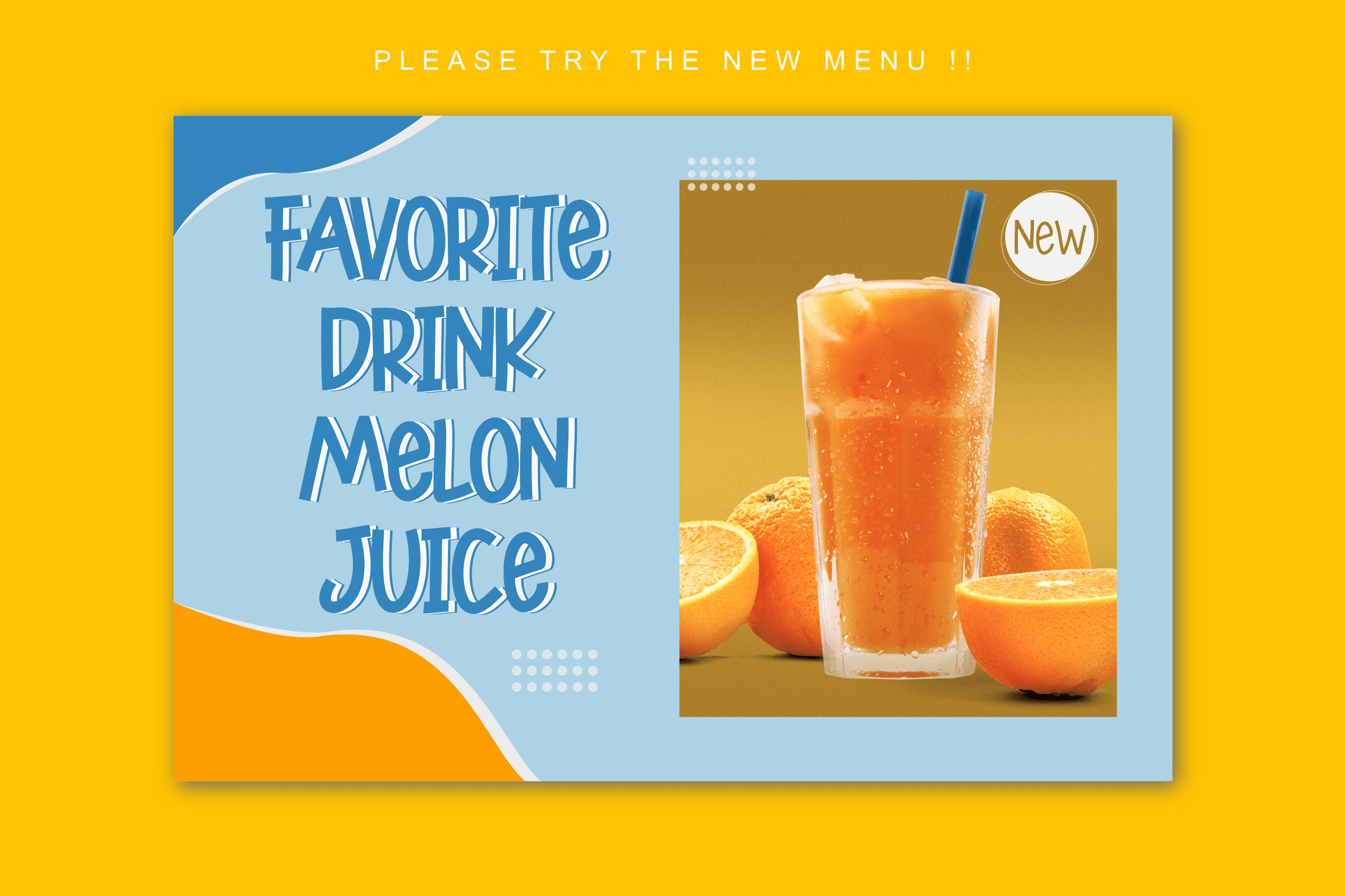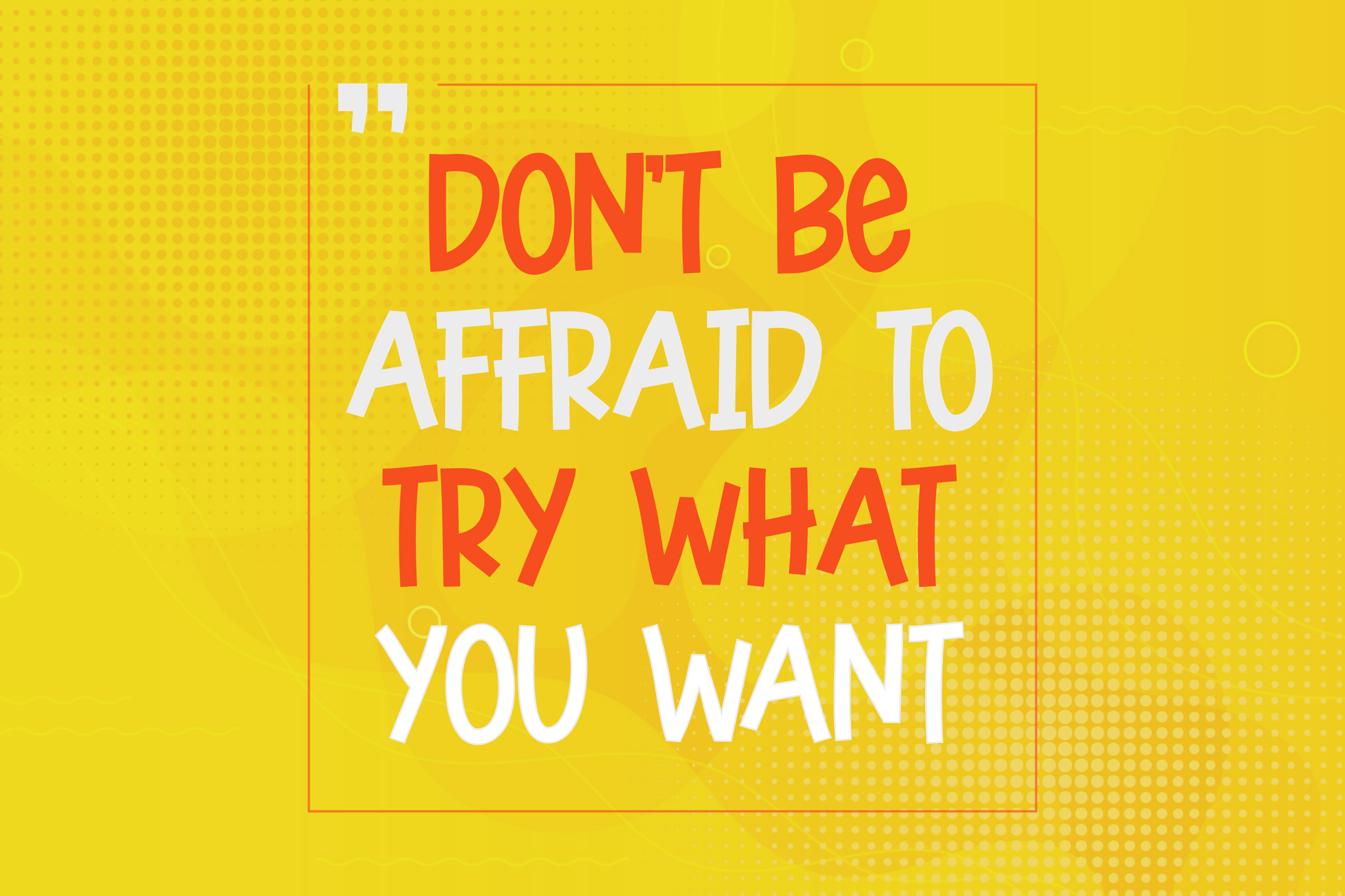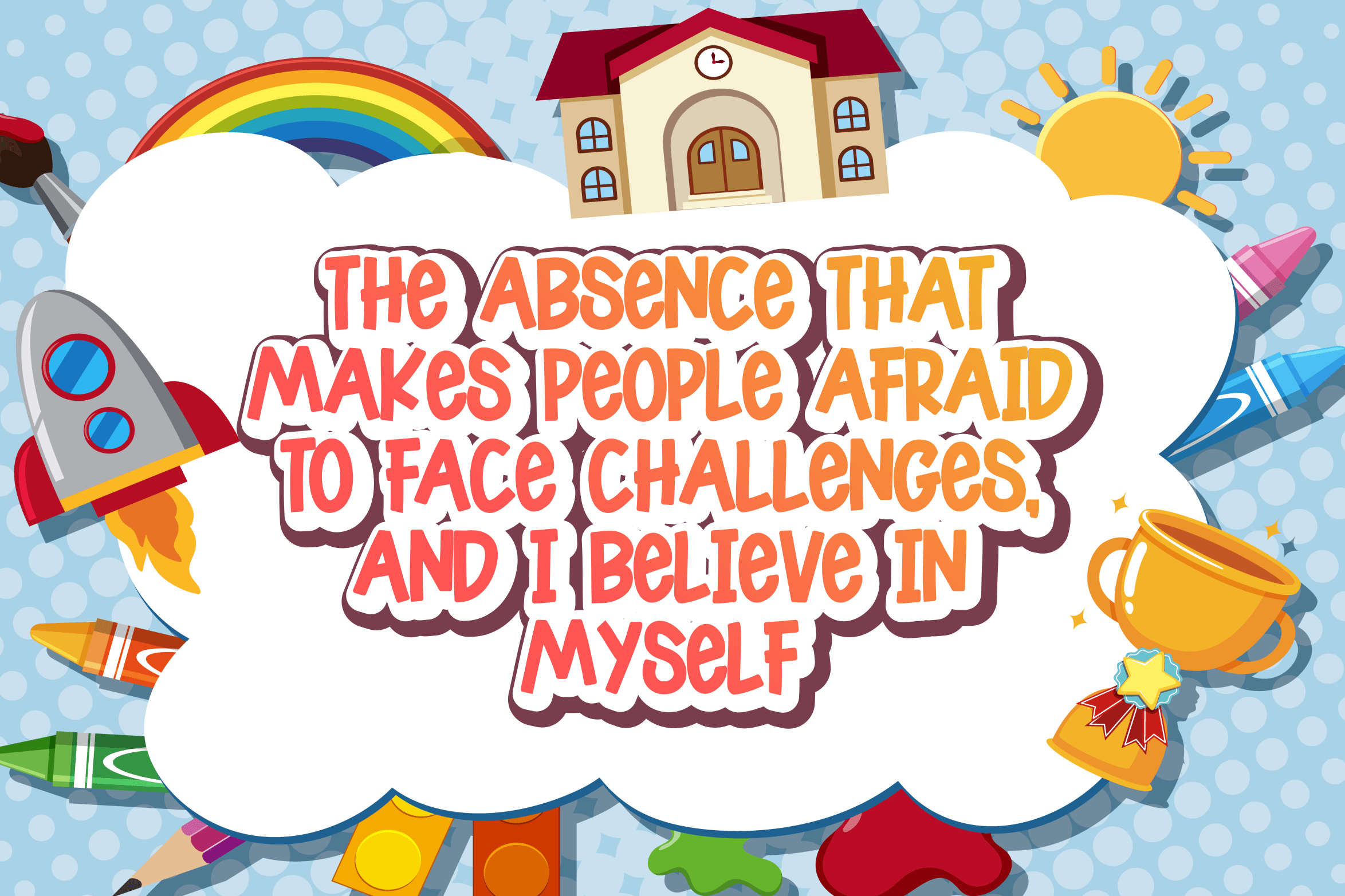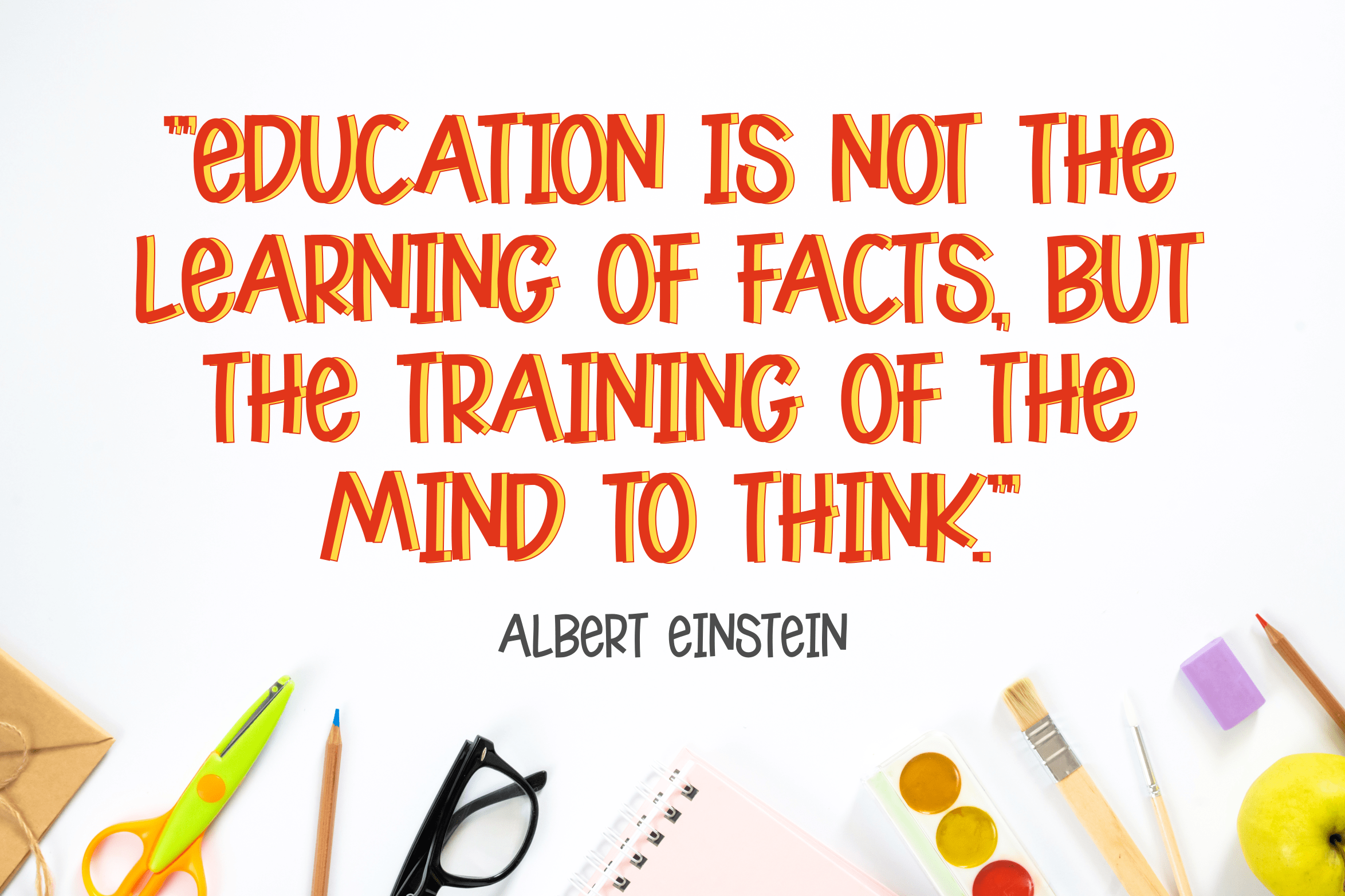
Roklies Font
Roklies Display Font
It’s a childish, easy-to-read display font that conveys impeccable friendliness. Whether you’re using it for crafts, digital design, presentations, or making greeting cards, this font has the potential to become your favorite go-to font, no matter the occasion!